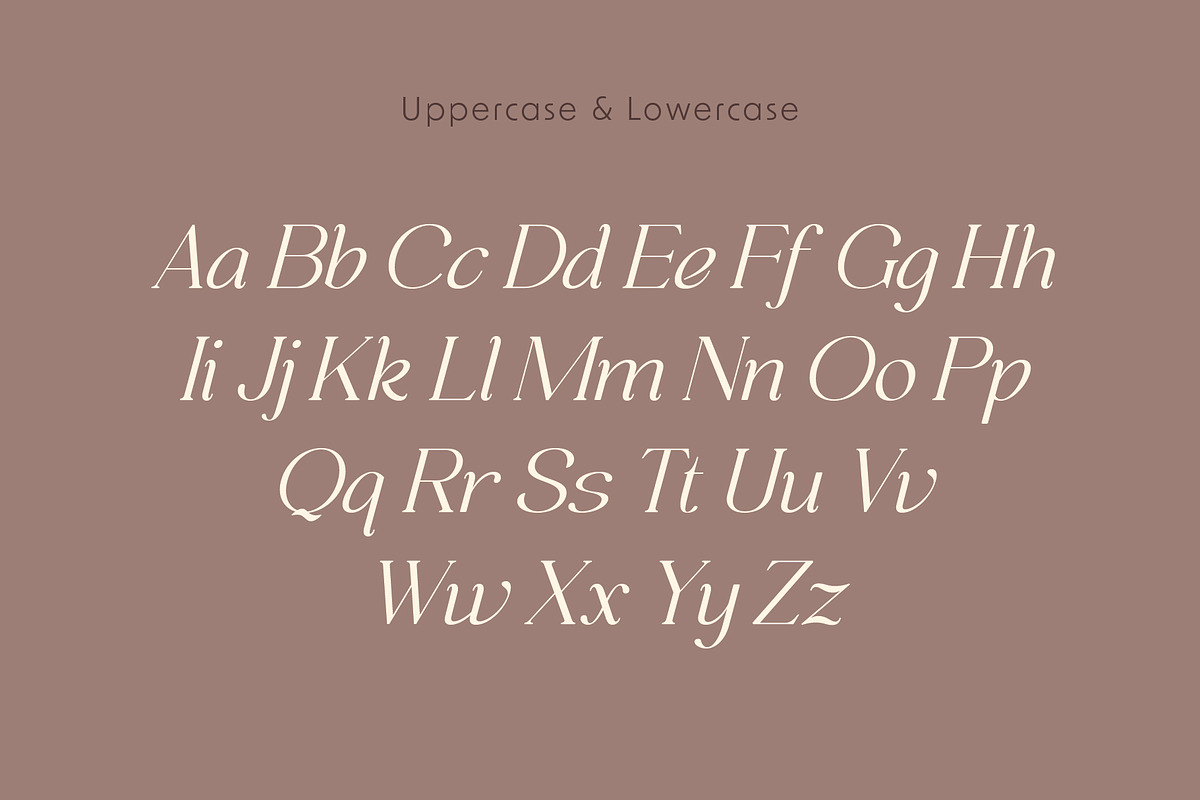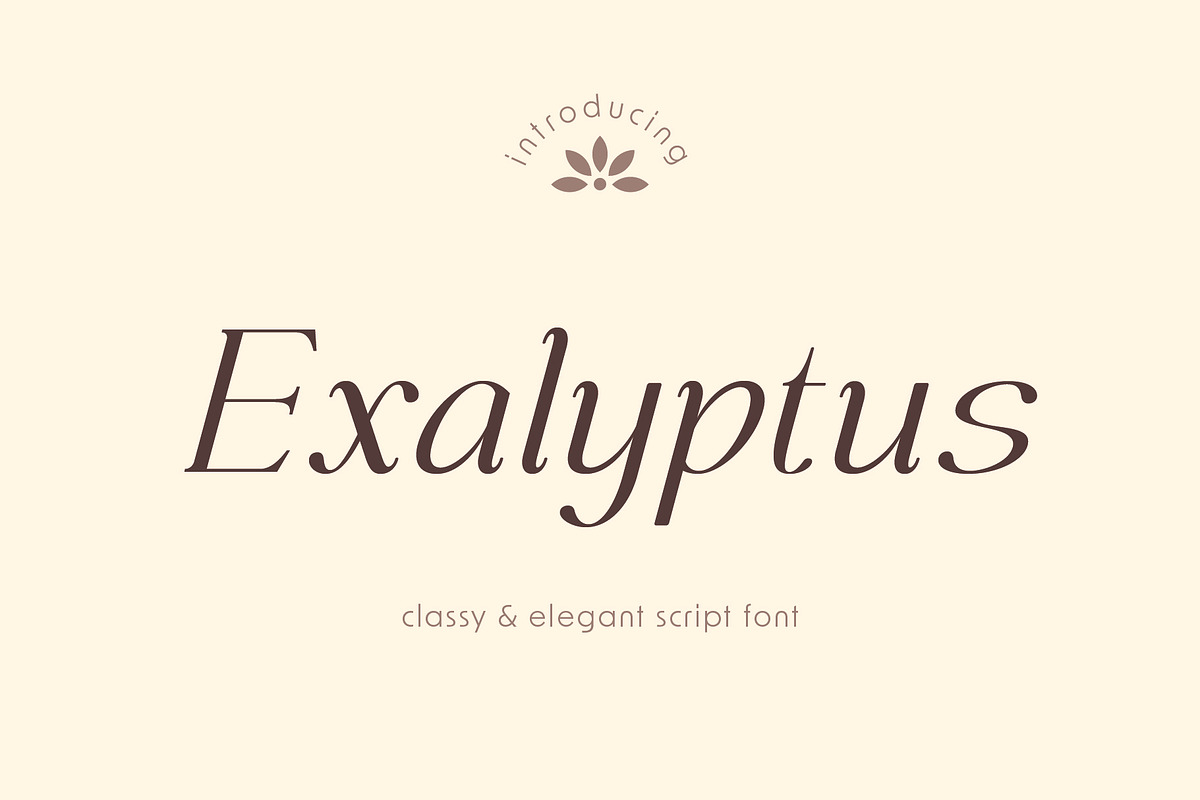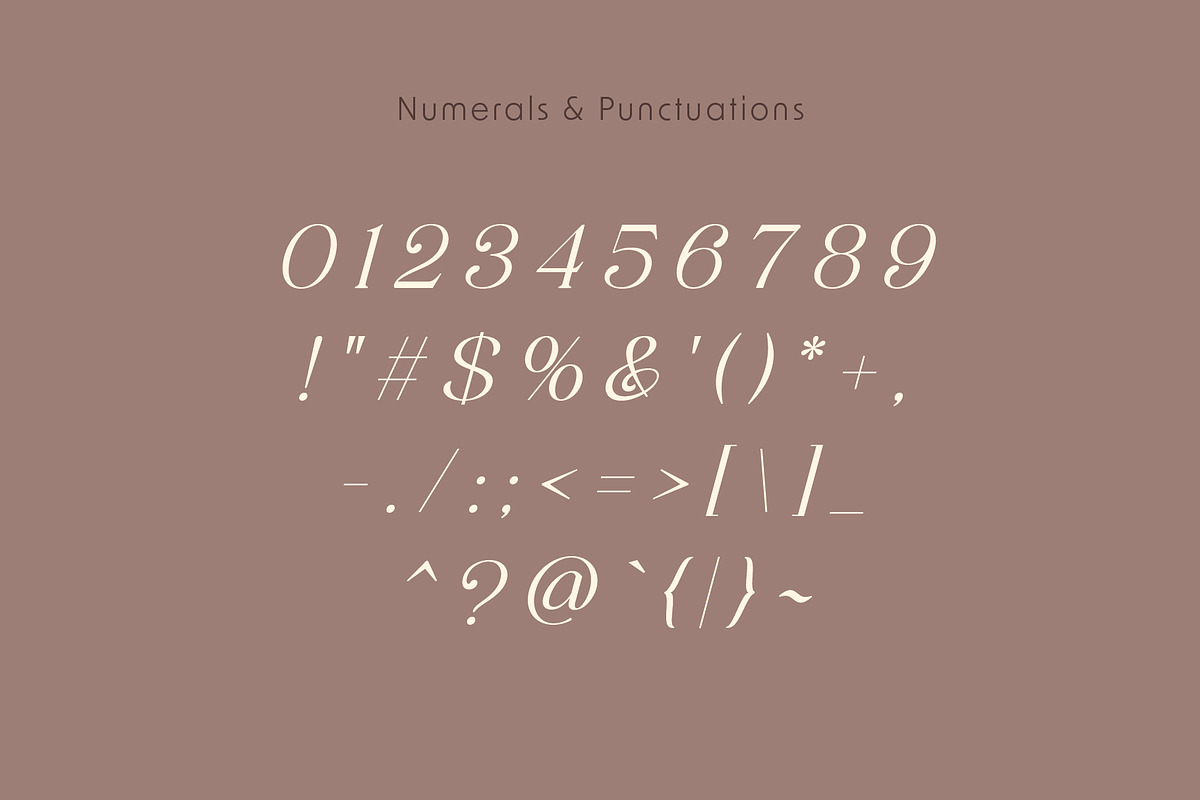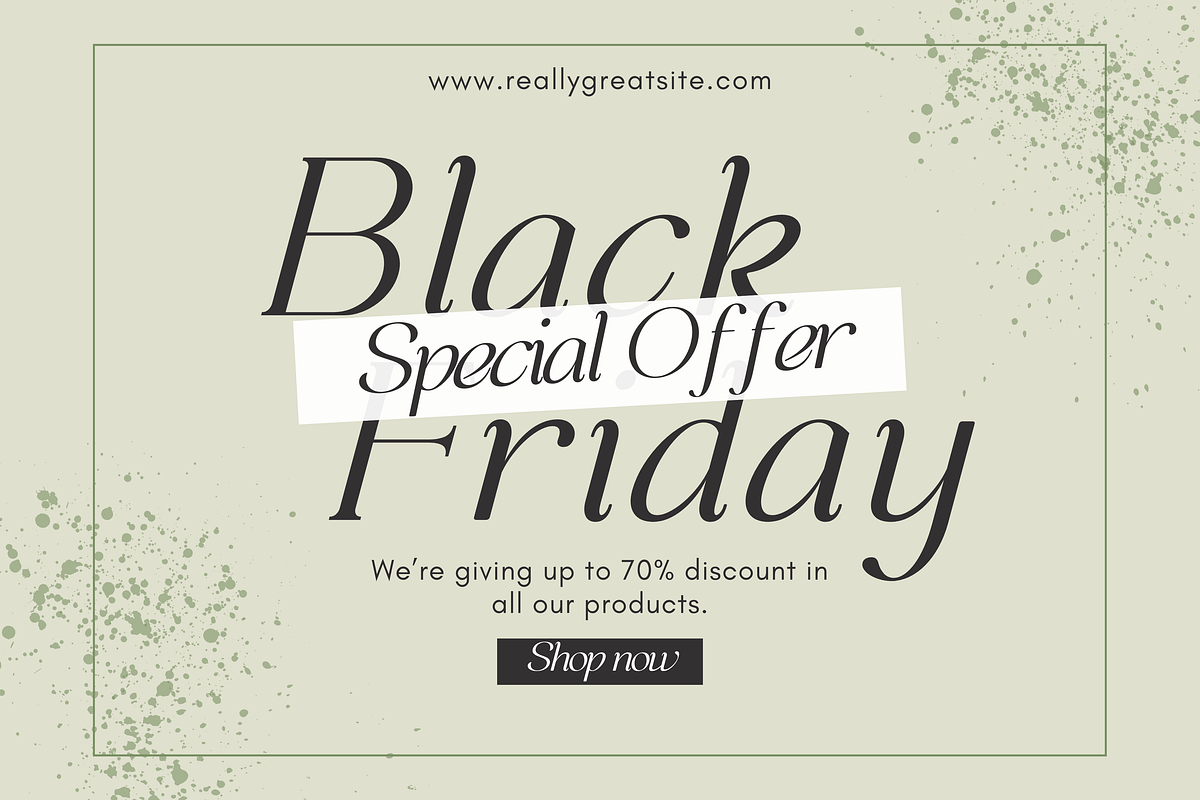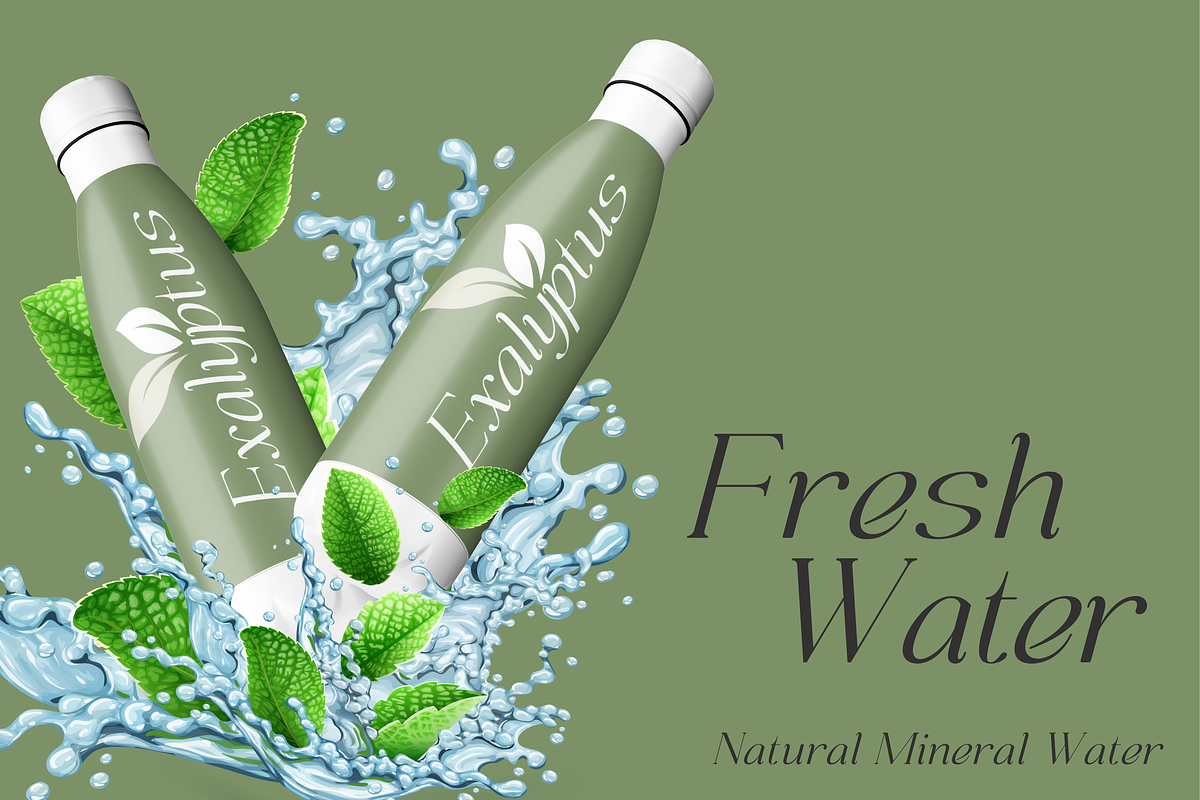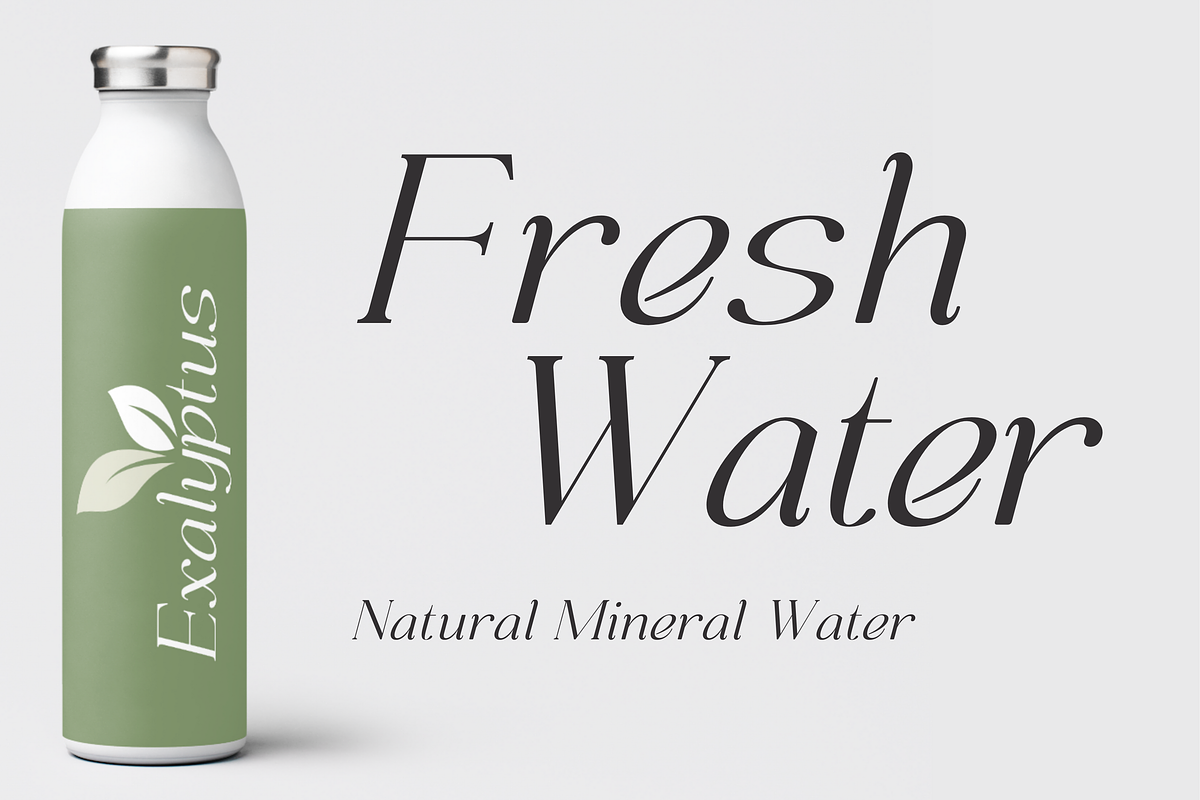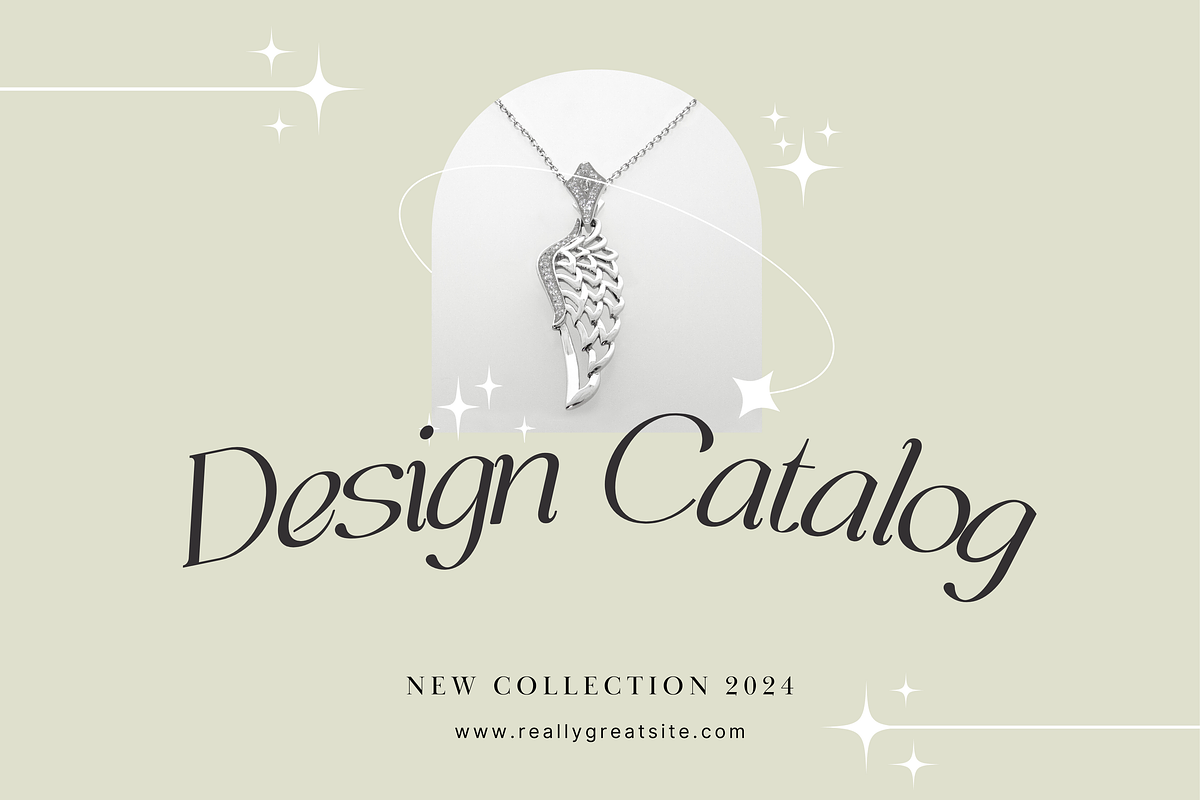
Exalyptus - Elegant Script Font
Introducing Exalyptus, a serif font with a touch of script and calligraphy that is both stunning and elegant. Perfect for a variety of creative needs, Exalyptus is ideal for greeting cards, wedding invitations, posters, jewelry catalogs, magazines, logos, and branding. This font offers a complete set of characters, including uppercase, lowercase, numbers, and basic punctuation, giving you full flexibility to express your creative ideas.